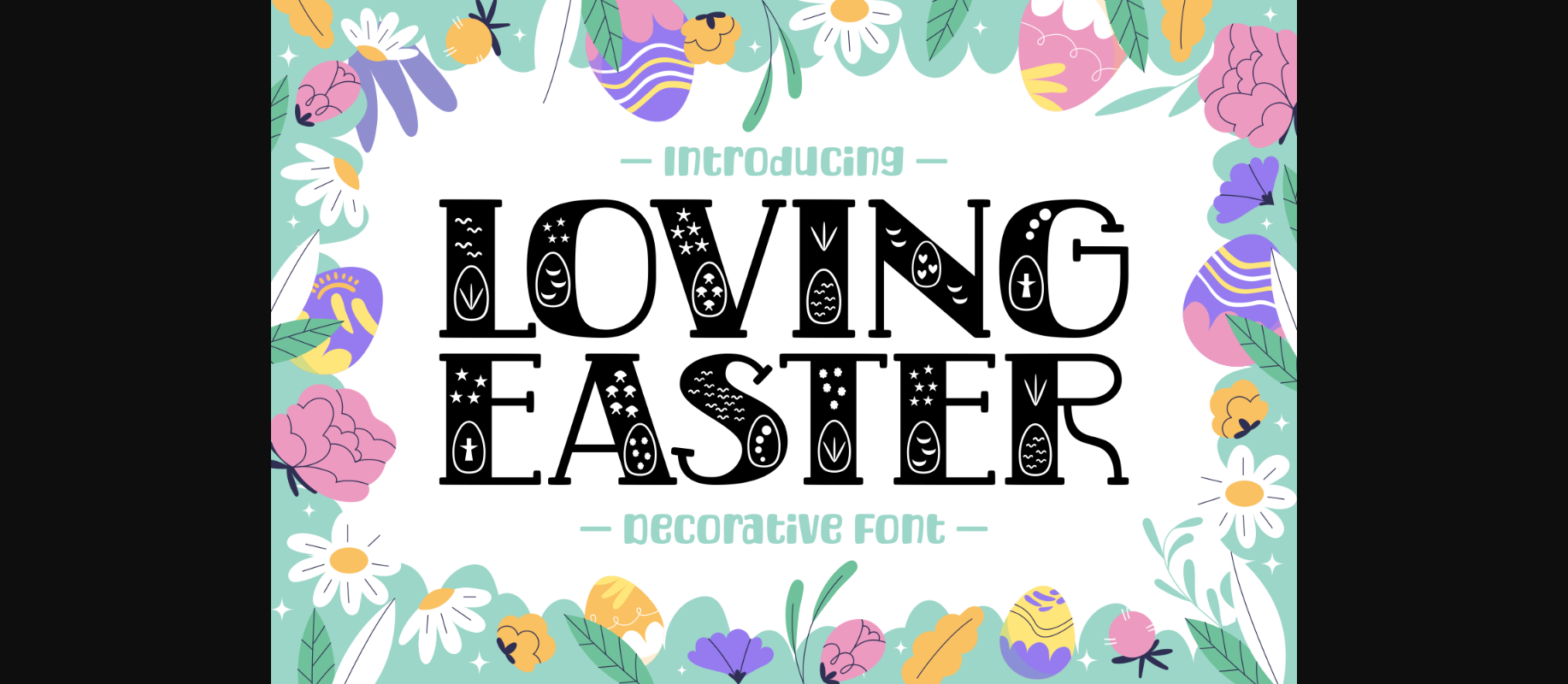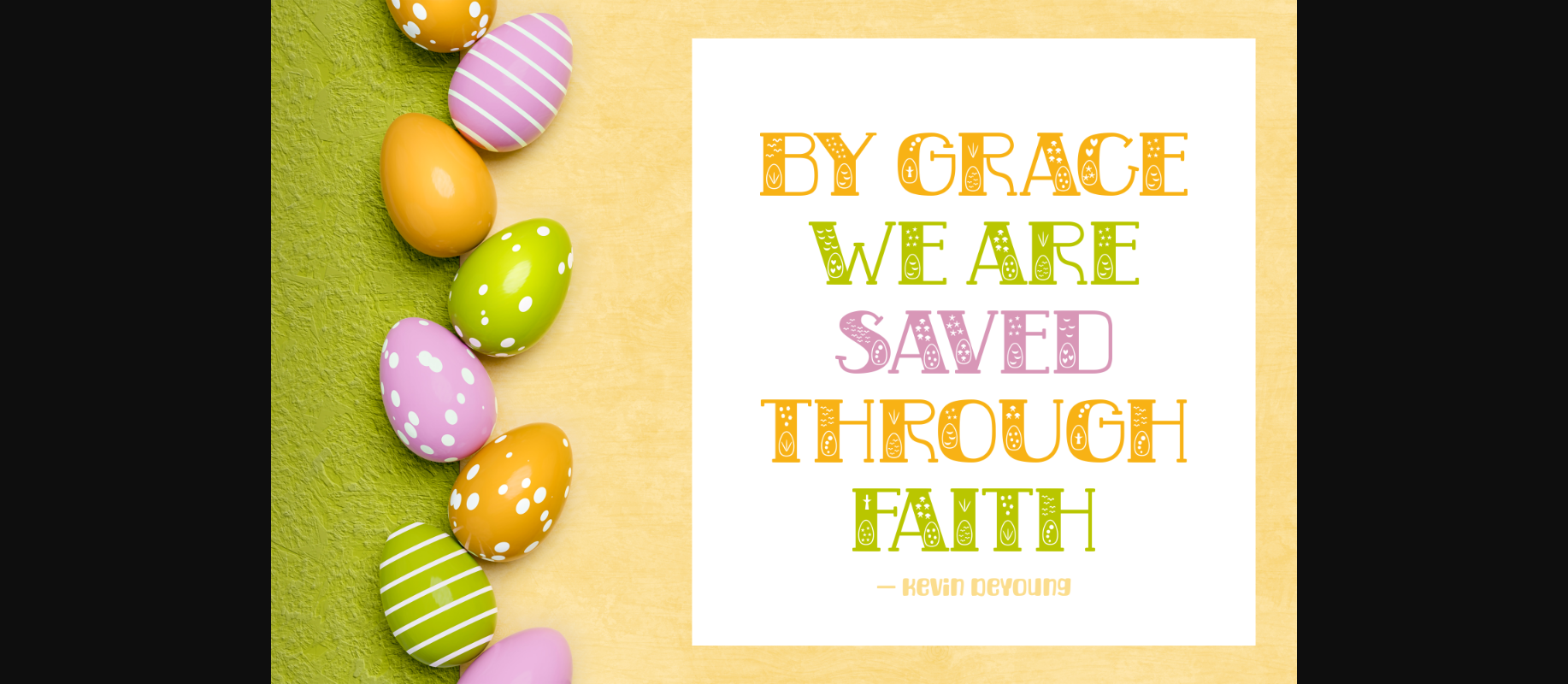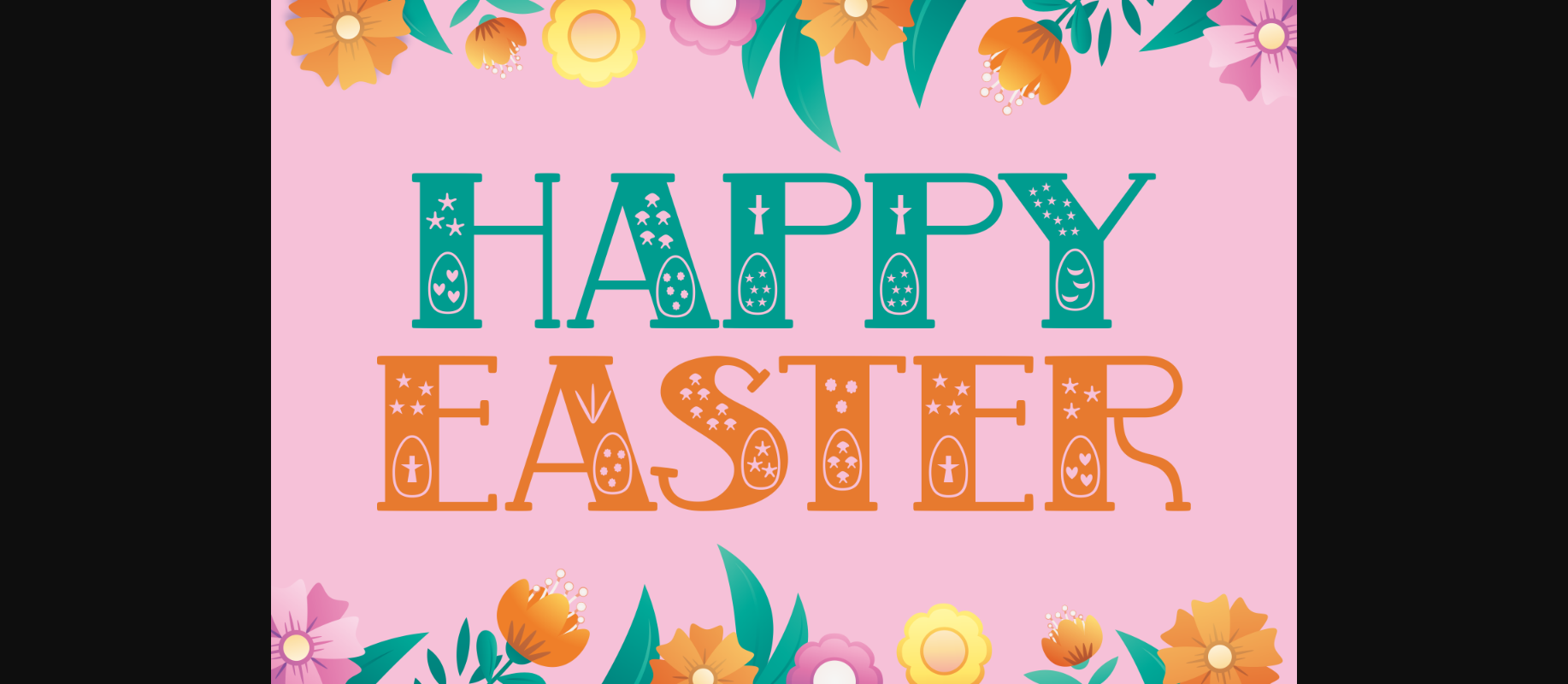
About Loving Easter Font
Loving Easter is a cute and lovely decorative font that features sweet and tiny elements inside each character. Perfect for adding a touch of sweetness to your designs, this font is sure to make your projects stand out.